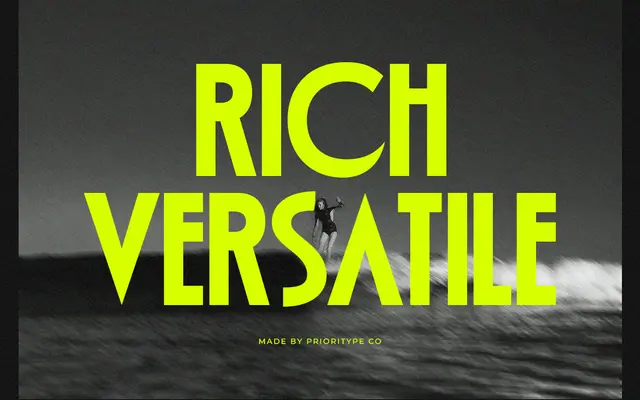
Rich Versatile – Display Sans
A single-weight bold display sans aimed at branding, poster and logo work with a retro-to-modern tone.
Released by Prioritype Co in April 2024, this is a bold display sans covering uppercase, lowercase, numerals and punctuation across an extensive Latin-extended multilingual character set. It is offered in OTF, TTF and WOFF formats and targets headline, packaging and social media applications. The styling gestures at both retro and contemporary aesthetics without committing strongly to either.
Marketed explicitly as a display sans serif intended for headlines, branding and posters rather than continuous text, with a bold weight and retro-to-modern aesthetic range.